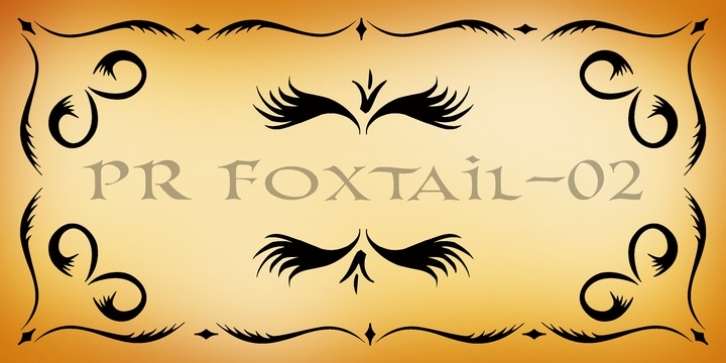
The bushy weed commonly known as foxtail provides the inspiration for this set of ornaments, and reveals its connection to the prairies. The appearance has an affinity to cowboy themed work.